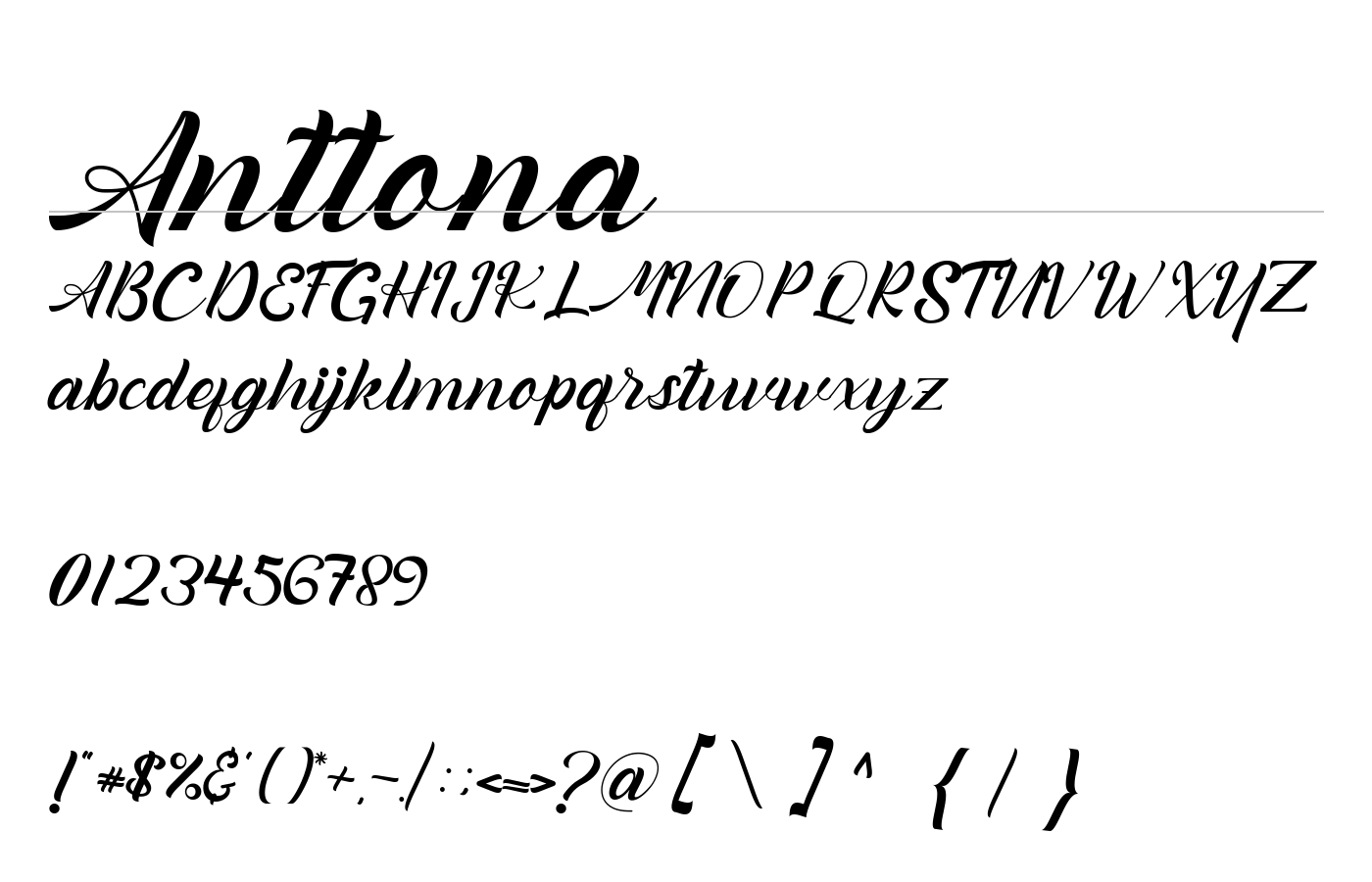
Anttona is an elegant, cursive script font with fluid and graceful letterforms that combine a smooth, calligraphic style with moderate contrast in stroke weight. It features both uppercase and lowercase characters with delicate swashes and unique details that give it a refined, stylish personality perfect for invitations, fashion branding, and sophisticated headlines. This font works beautifully where a touch of elegance and a personal, handcrafted feel are desired.
Anttona Font
About Anttona Font